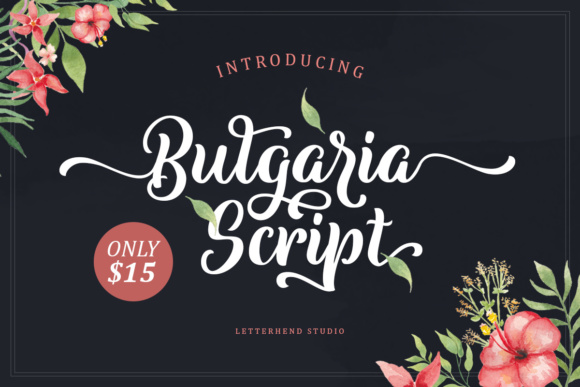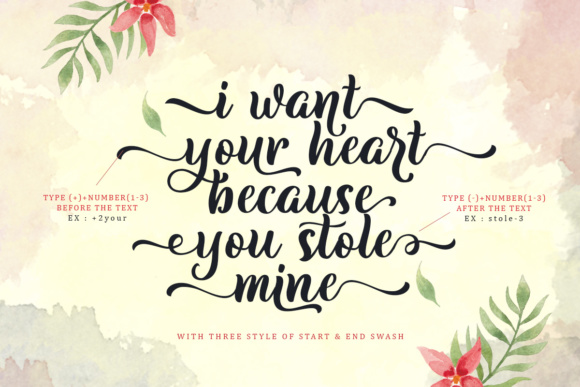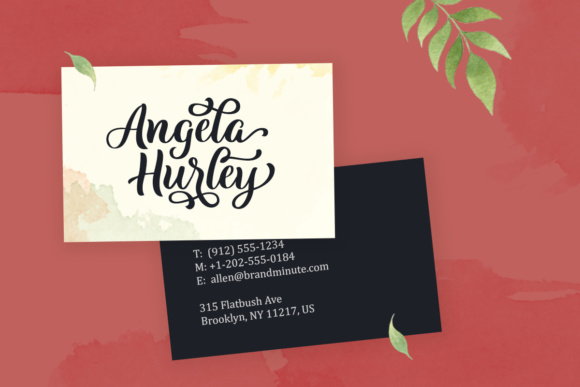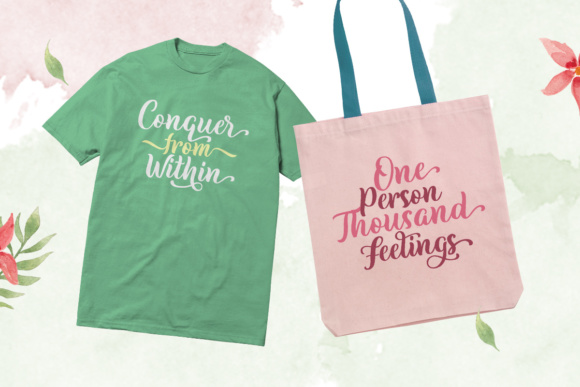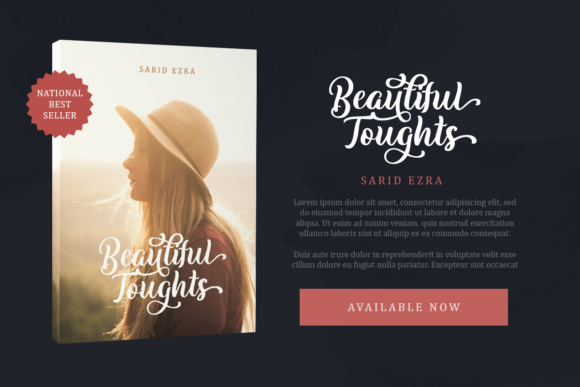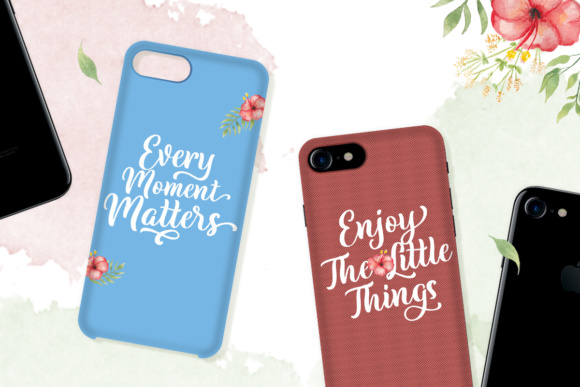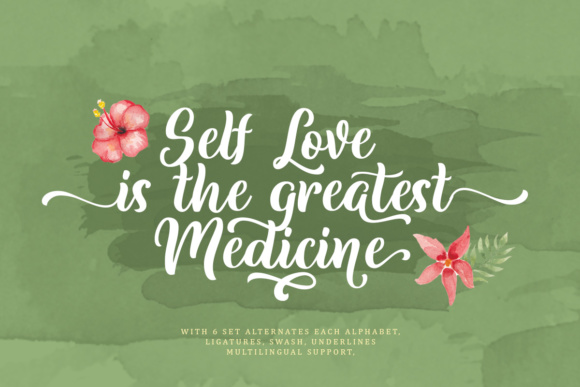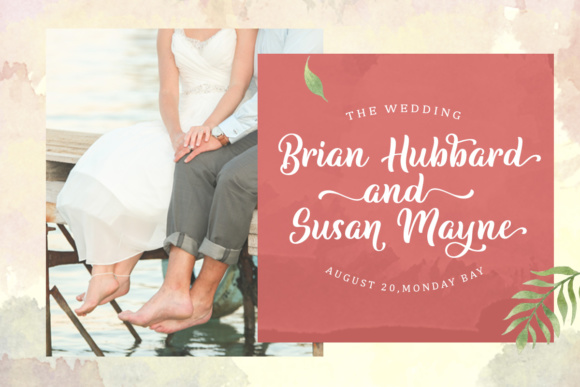
Bulgaria Script Font
About Bulgaria Script Font
Bulgaria is a romantic modern script which has a twist of fun! The natural hand writing script is suitable for anyone who needs a typeface for headlines, logotypes, posters and much more!